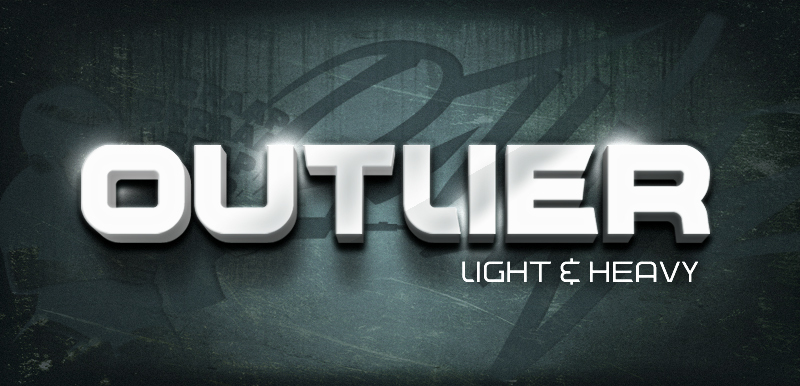
Outlier
Outlier is an eye-catching, bold display font that exudes a distinct techno-inspired aesthetic. Crafted by designer Michael Muranaka, this expanded font showcases a striking, angular form with sharp edges and a strong, unwavering presence.
The expansive width lends a sense of technological sophistication, perfectly suited for attention-grabbing headlines, futuristic branding, and dynamic design compositions. Outlier's powerful visual impact makes it an impactful choice for a wide range of applications, from digital interfaces and product packaging to signage and editorial layouts.